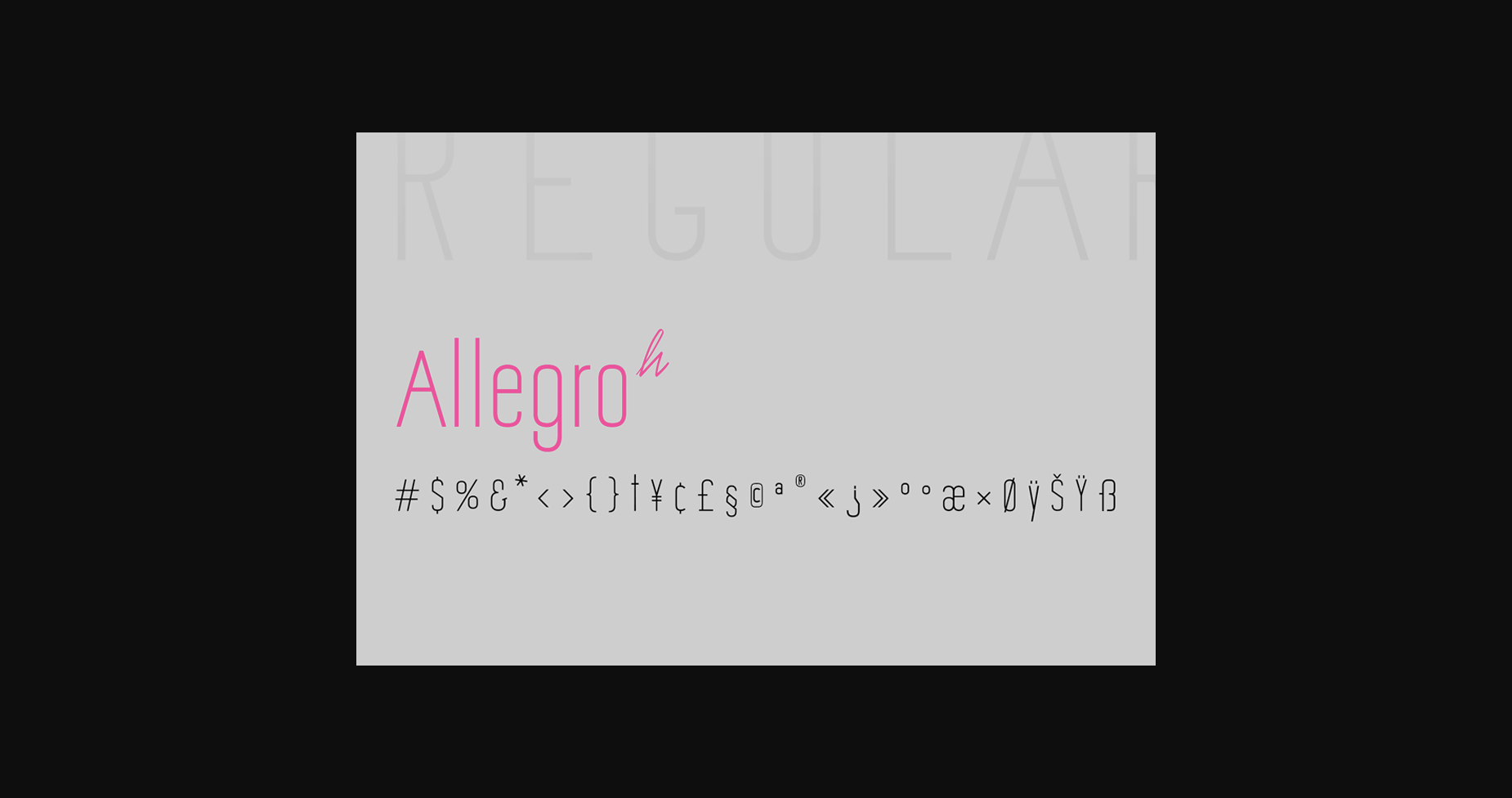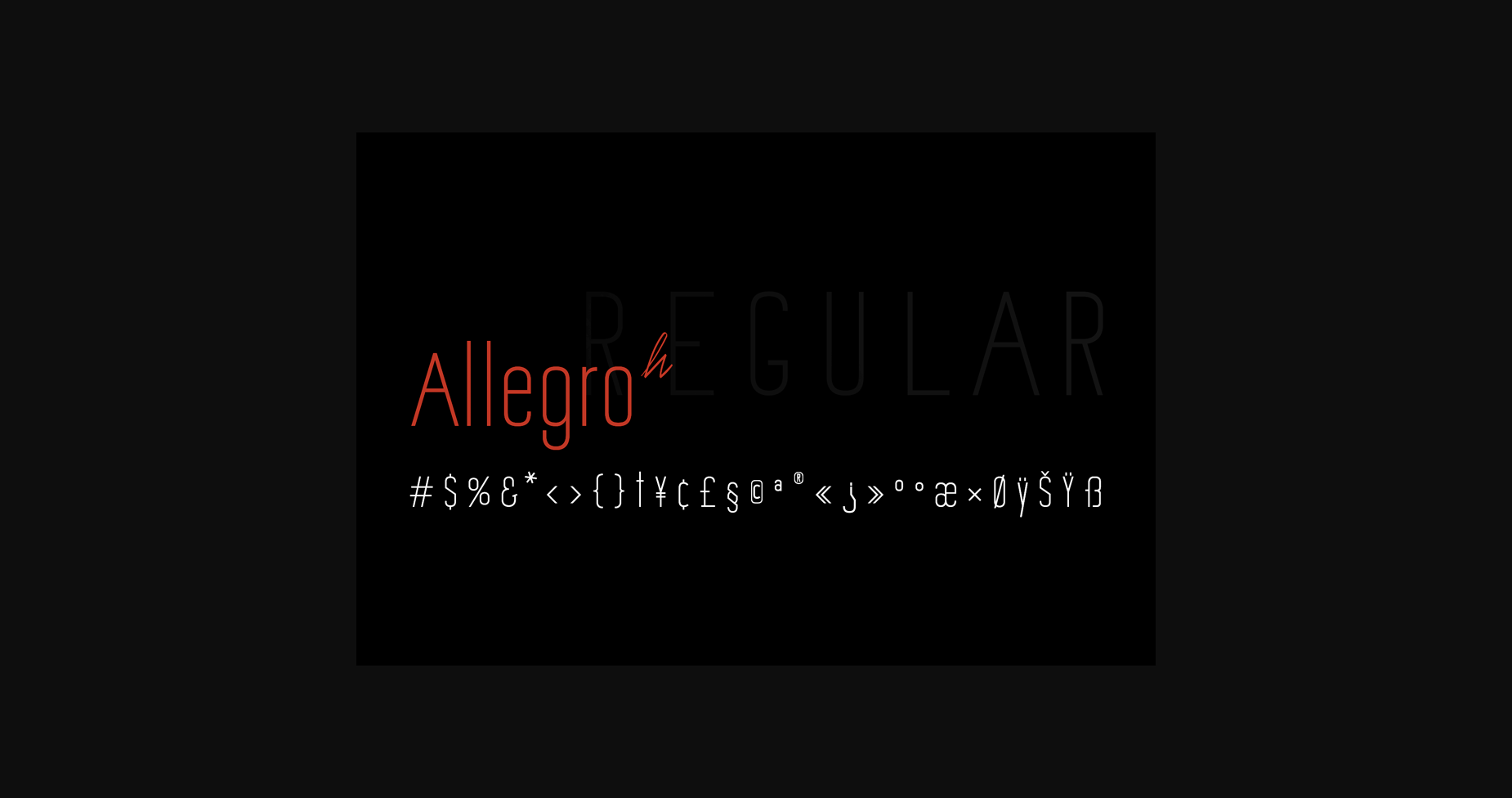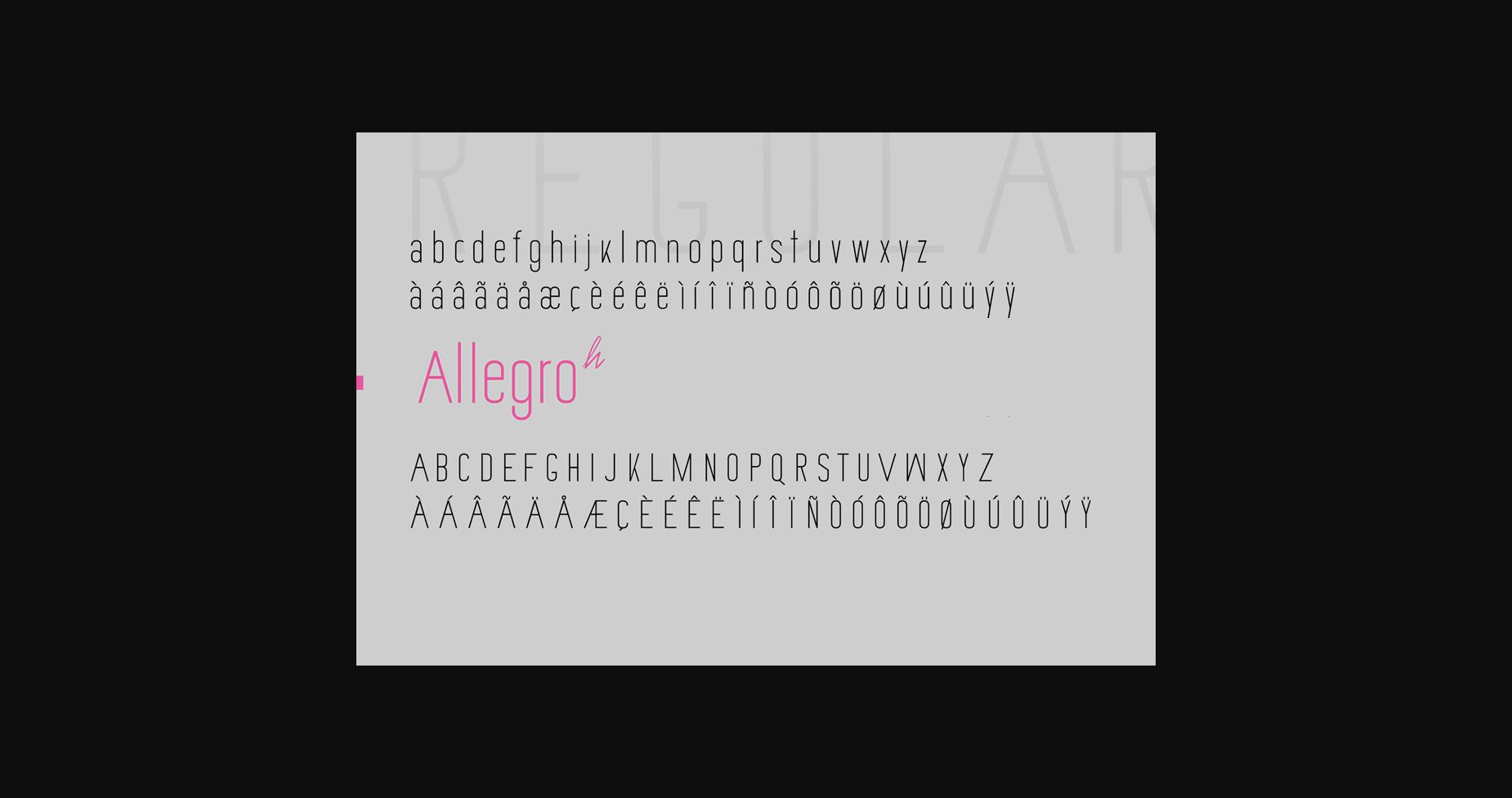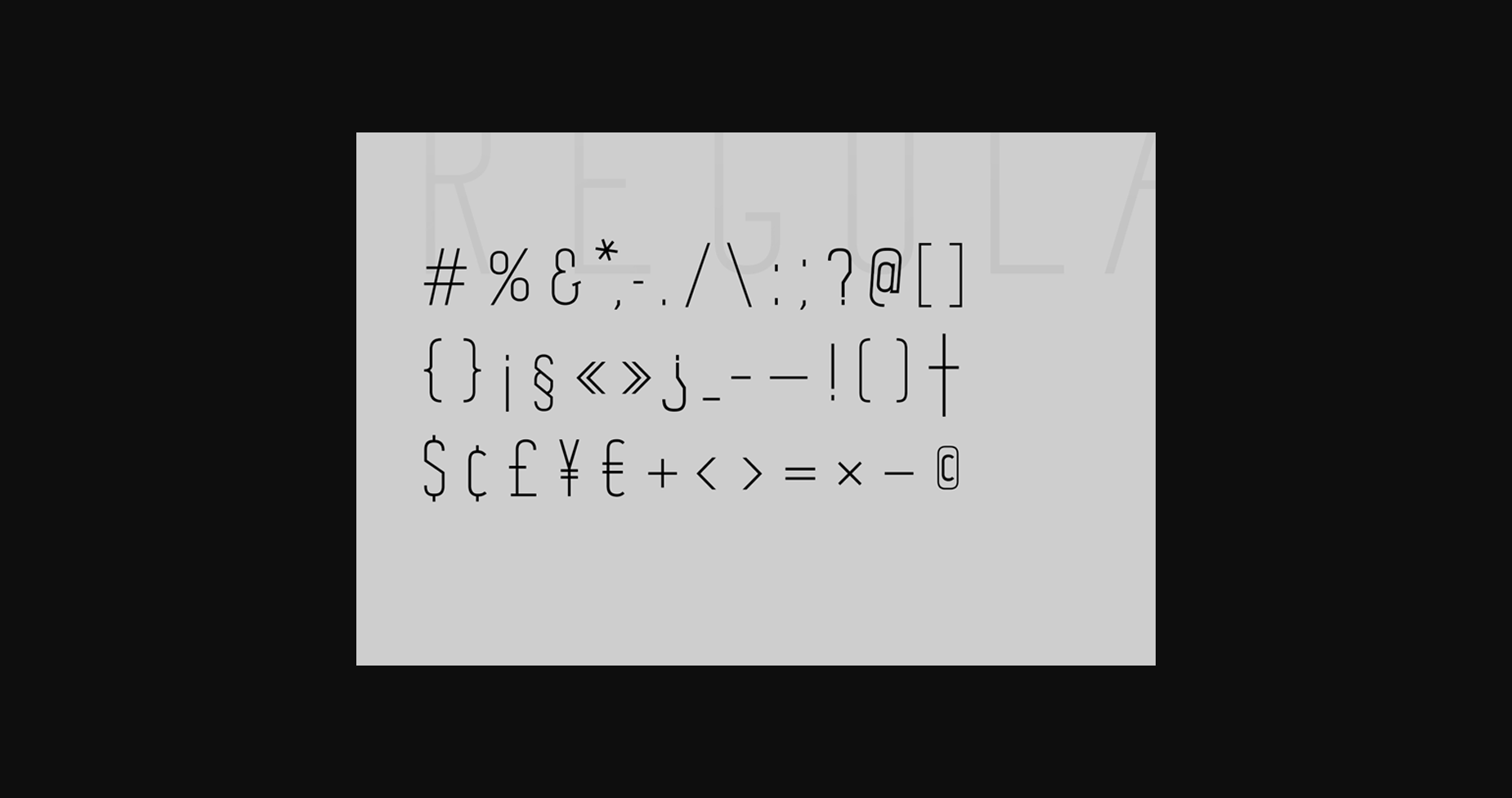
Allegro Sans is a clean, bright, cheerful and minimal sans serif font inspired by the vibrant speed and gentle movements of the Allegro tempo. Add it to your most creative ideas and notice how it makes them come alive!